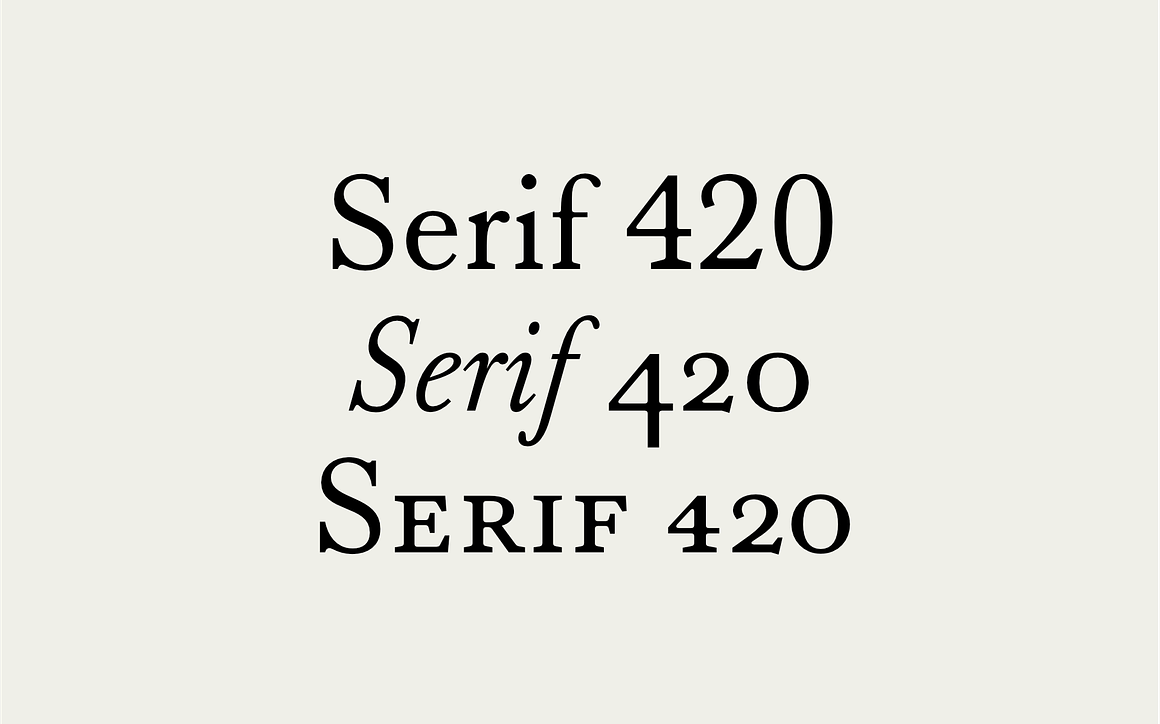
Serif 420 Font
Serif 420 Font is perfect for contemporary editorial projects, modern publishing applications, sophisticated corporate identities, refined branding campaigns, professional documentation, upscale magazine layouts, elegant web typography, and distinguished advertising materials. This evolved typeface works beautifully in both digital applications and print media where modern sophistication and readable elegance are essential design considerations.
What makes Serif 420 Font so exciting is its innovative approach to serif typography that bridges classical tradition with contemporary design sensibilities through expertly refined letterforms that offer both familiarity and fresh sophistication. The font features modernized characters with updated proportions, contemporary serifs, and optimized spacing that ensures exceptional readability while maintaining distinctive personality. Its evolved design philosophy makes it ideal for brands seeking to communicate progressive thinking, refined taste, and modern professionalism while appealing to audiences who appreciate both traditional quality and contemporary innovation.
The Serif 420 Font family includes comprehensive weight variations from light to bold, along with matching italic styles and contemporary alternates. Each style maintains the typeface's modern character while offering extensive multilingual support, updated numerals, contemporary punctuation marks, and special characters designed to enhance sophisticated communications and progressive branding efforts across global markets and diverse applications.
This extraordinary typeface represents the perfect convergence of serif tradition and contemporary typography evolution for modern professional and creative industries. Whether you're developing progressive brand identities, creating sophisticated editorial content, or designing contemporary corporate materials, Serif 420 Font Free Download delivers the modern elegance and versatility needed for successful contemporary communications. The font's evolved aesthetic makes it particularly effective for design studios, modern publishers, progressive corporations, and organizations celebrating the intersection of traditional craftsmanship and contemporary innovation.
The precisely engineered contemporary construction and optimized modern performance in Serif 420 Font ensure exceptional clarity while maintaining its distinctive evolved character. Its sophisticated versatility allows seamless transitions from detailed text applications to impactful display typography, making it an essential tool for designers creating refined communications that resonate with audiences seeking both quality tradition and progressive sophistication.